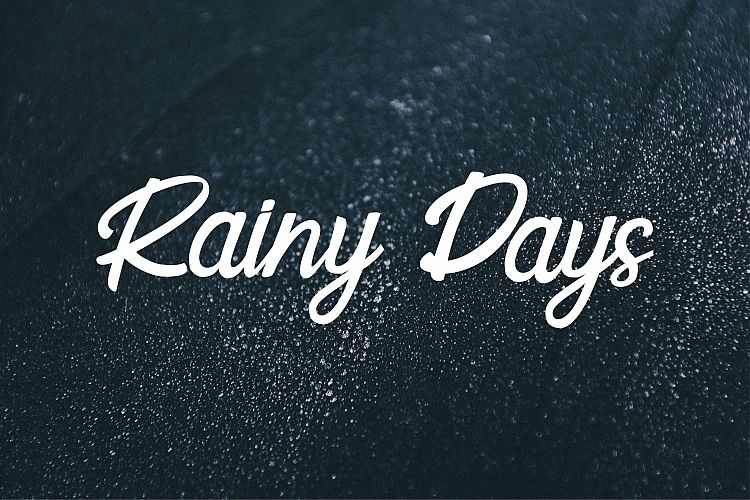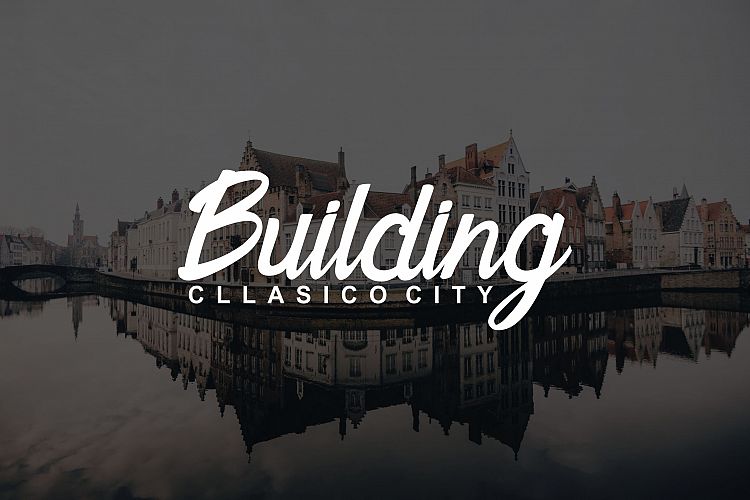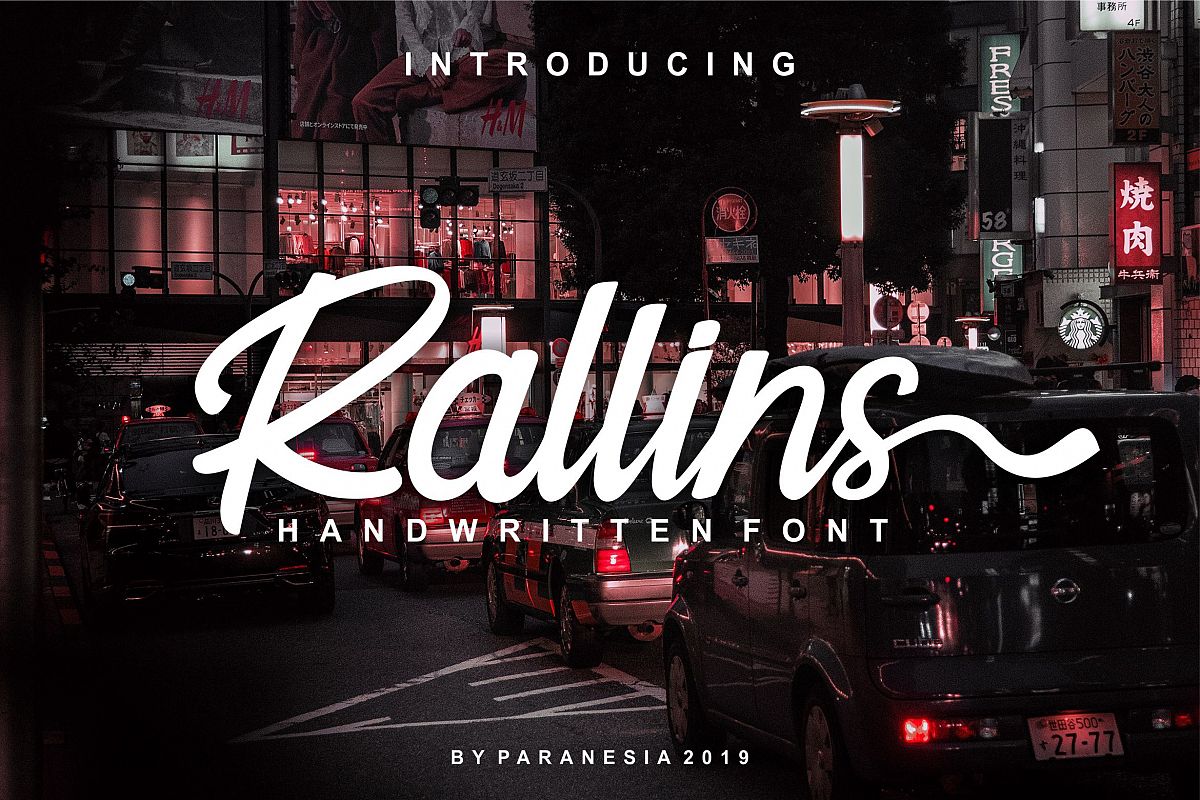
Rallins Script Font
The Rallins is a beautiful script font. It has a elegant appearance and is suitable for logos, invitations, but can also be used to make quotes or titles.